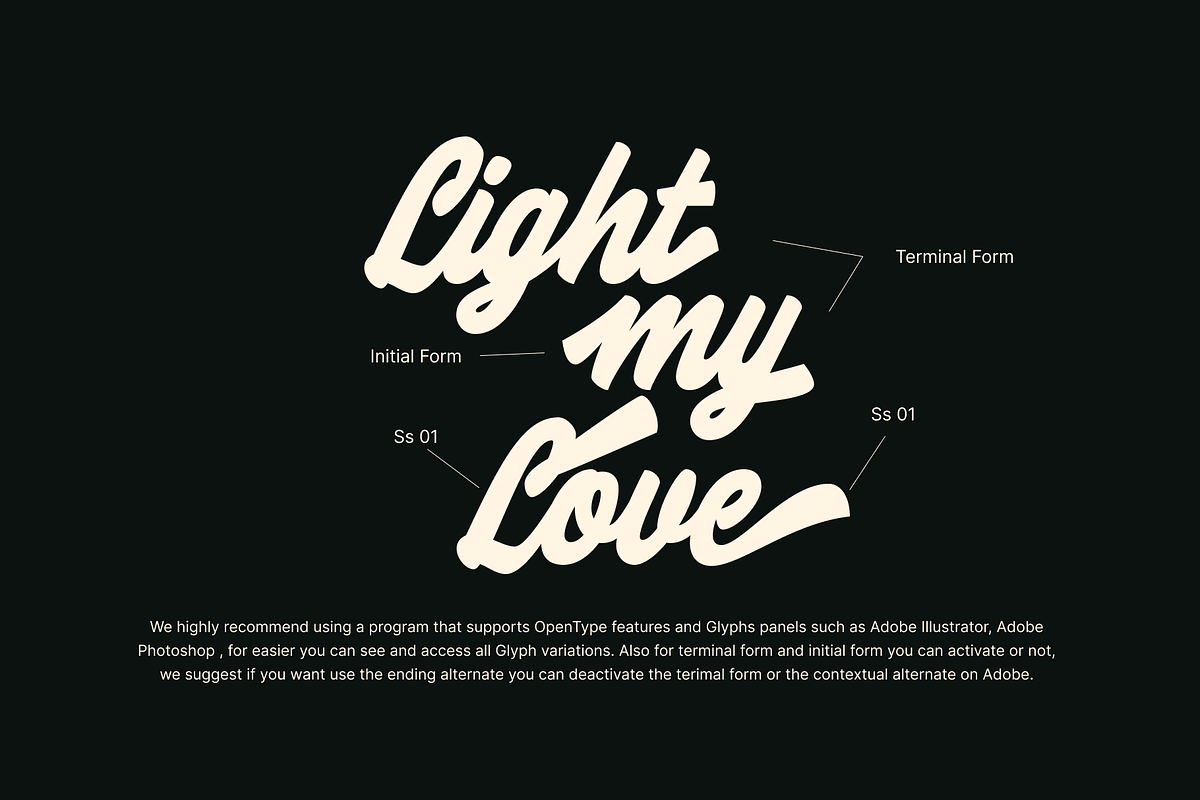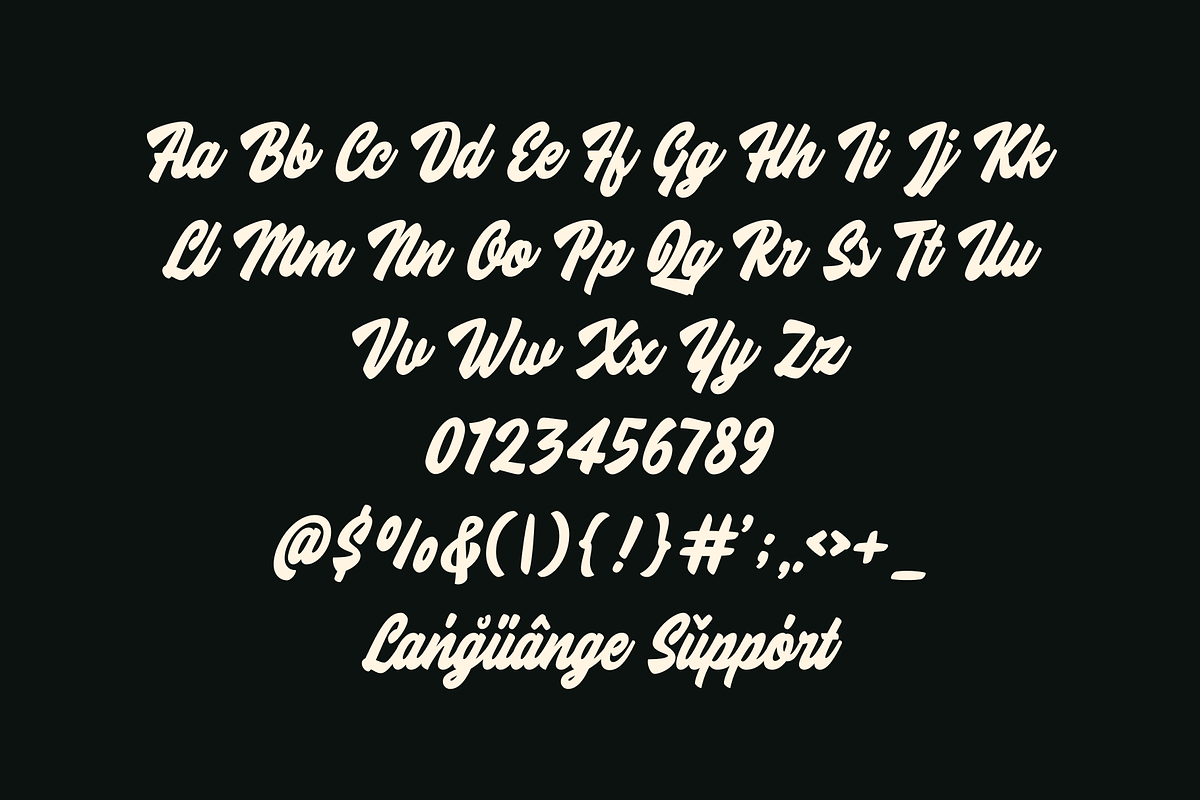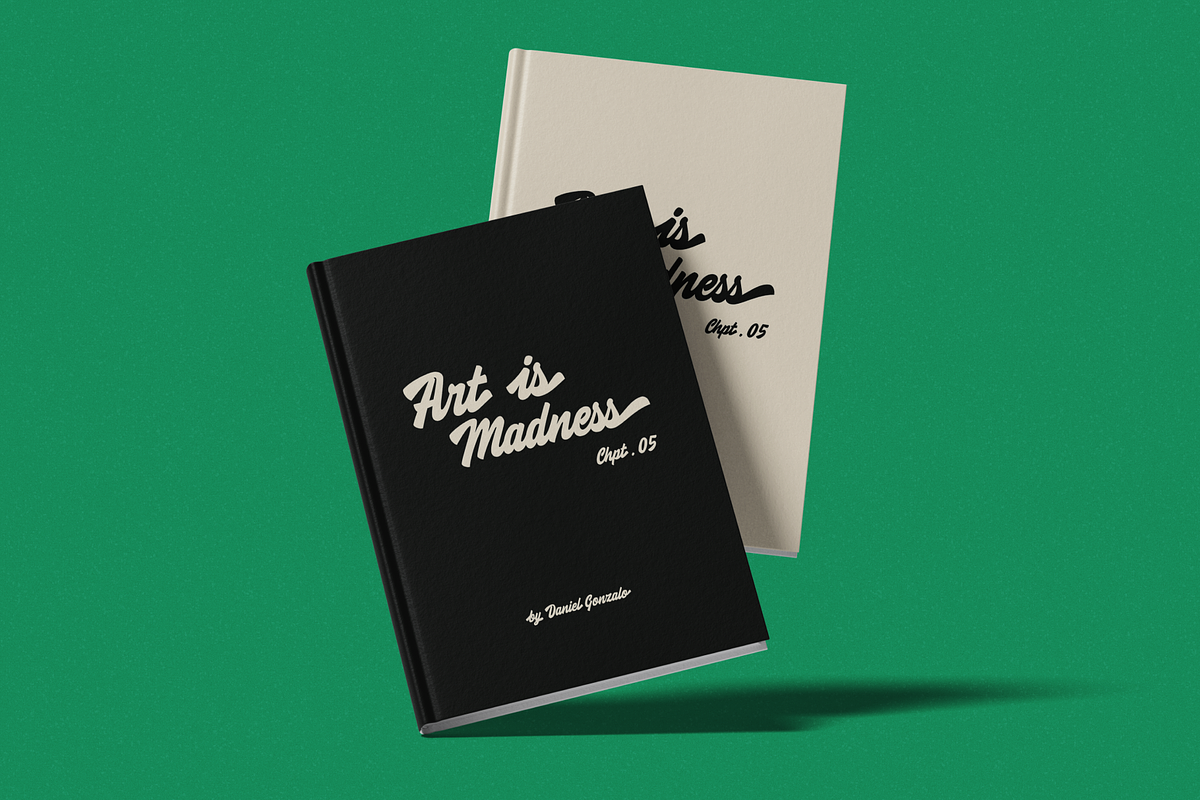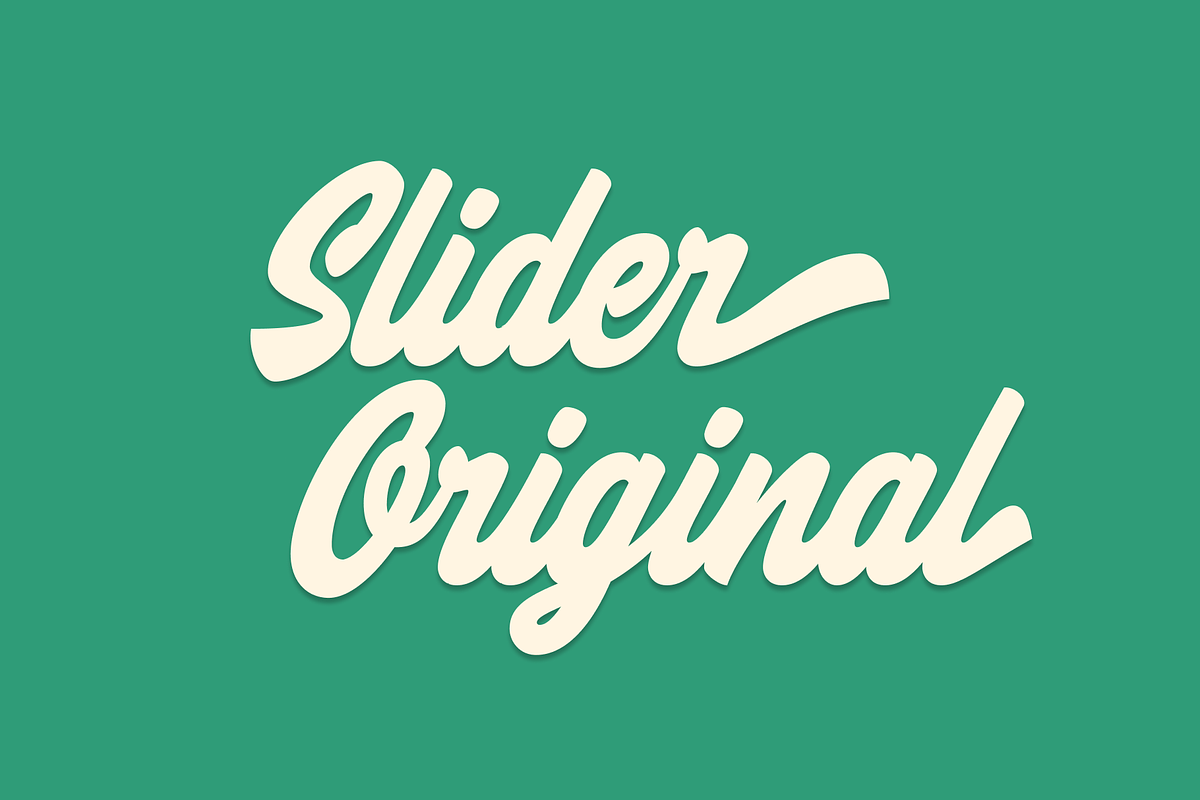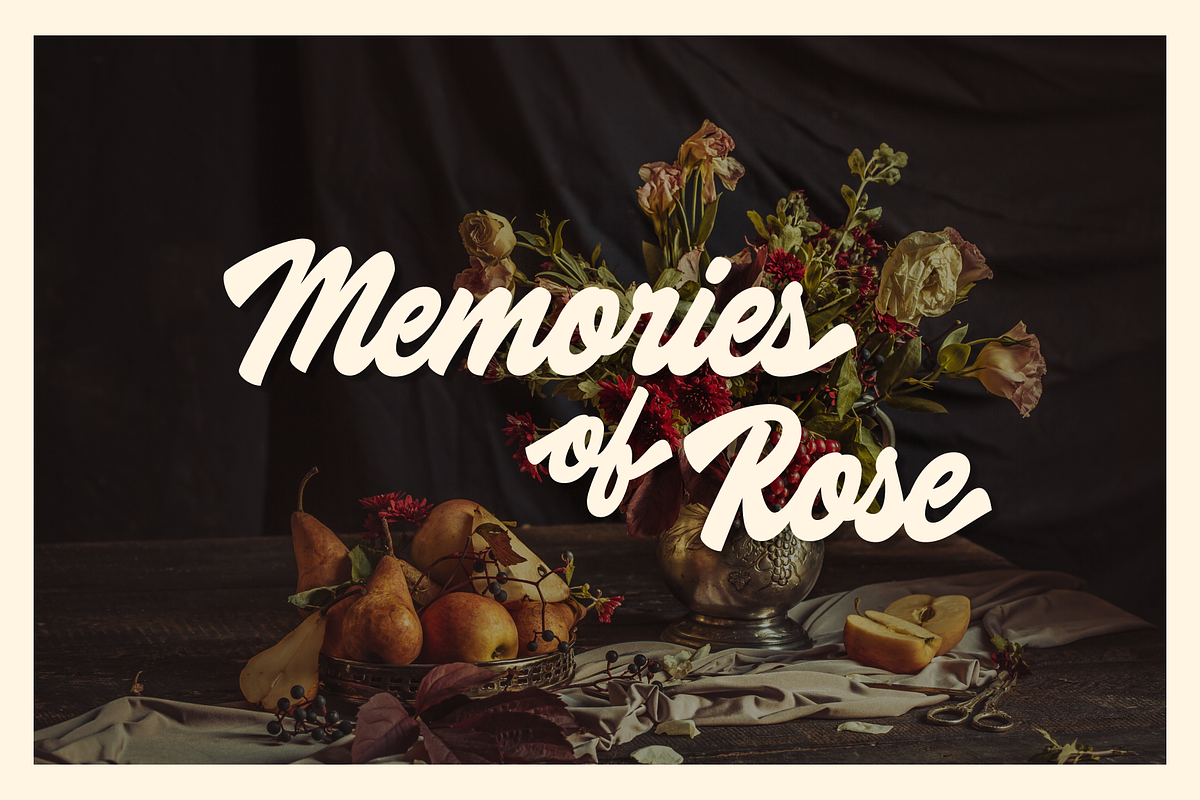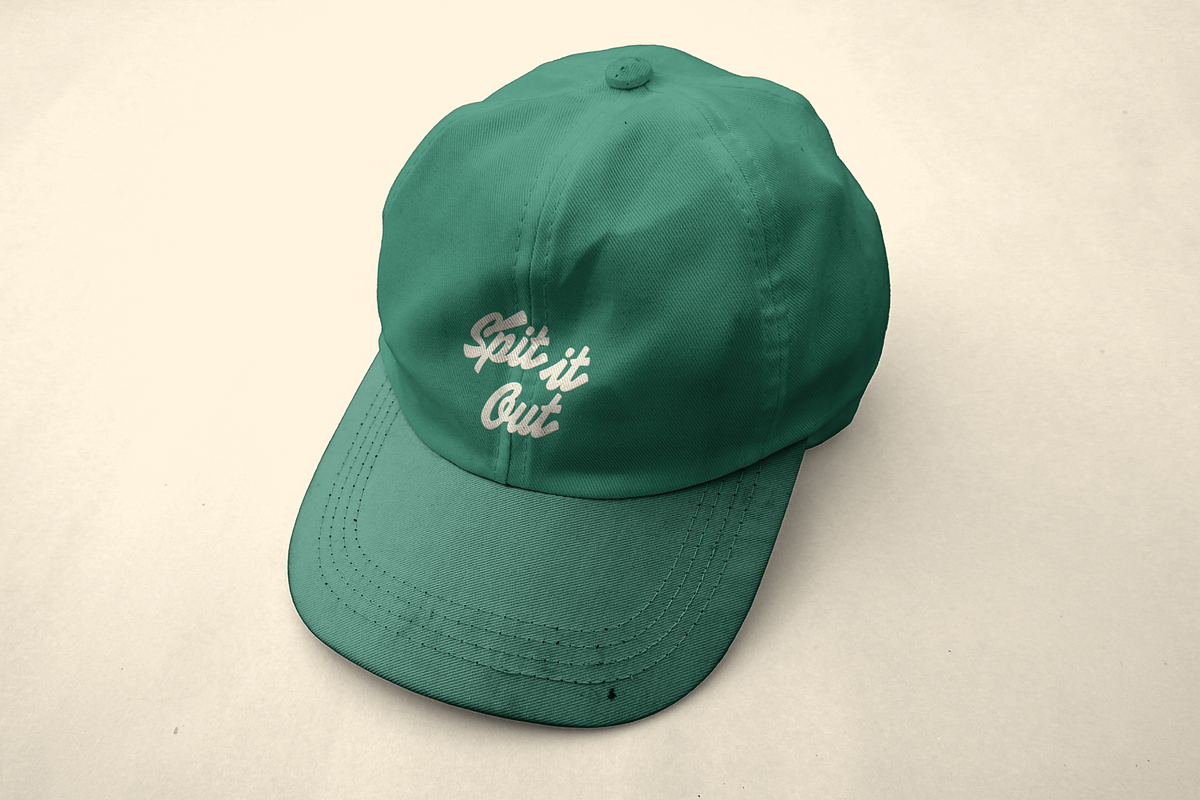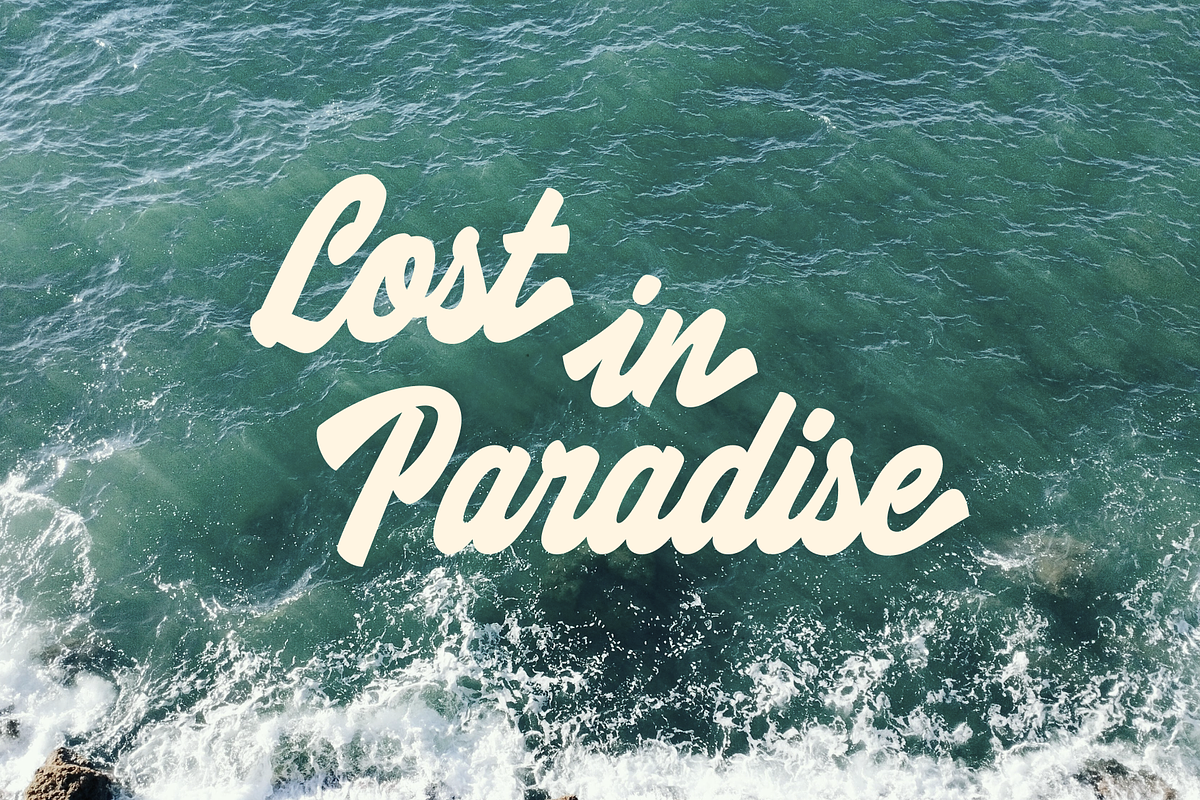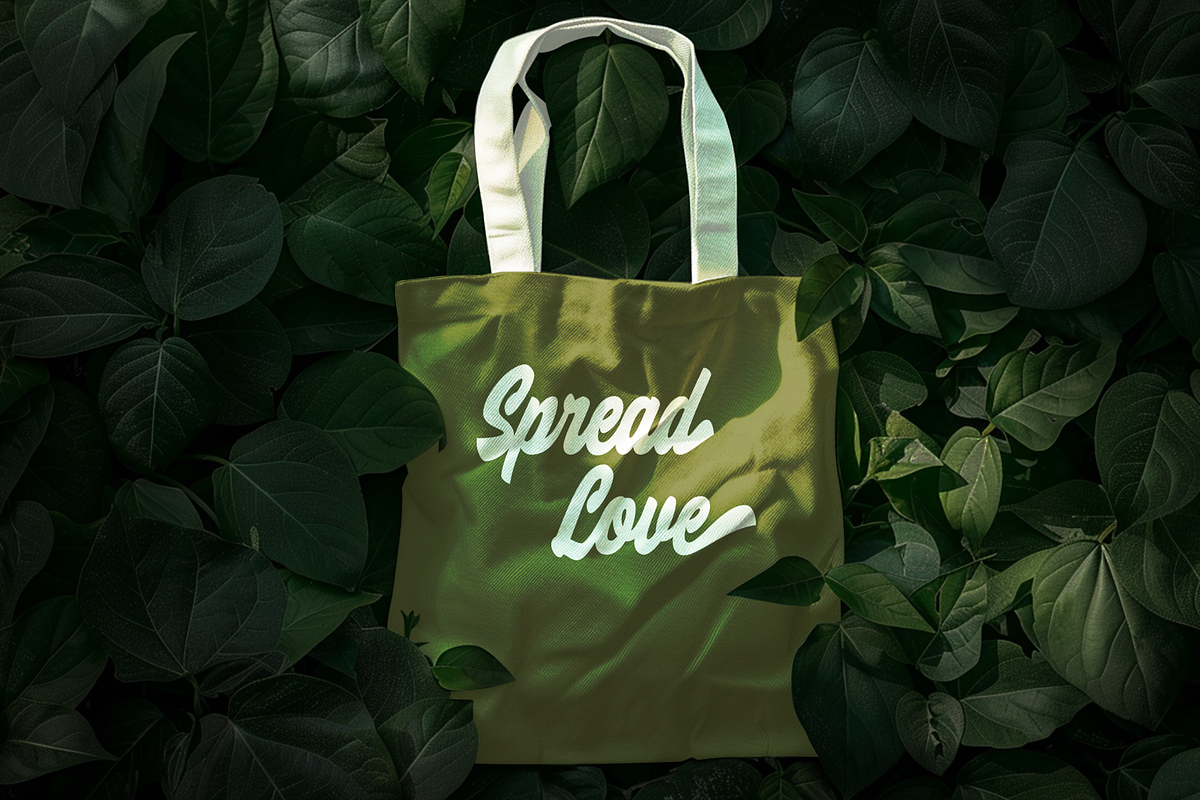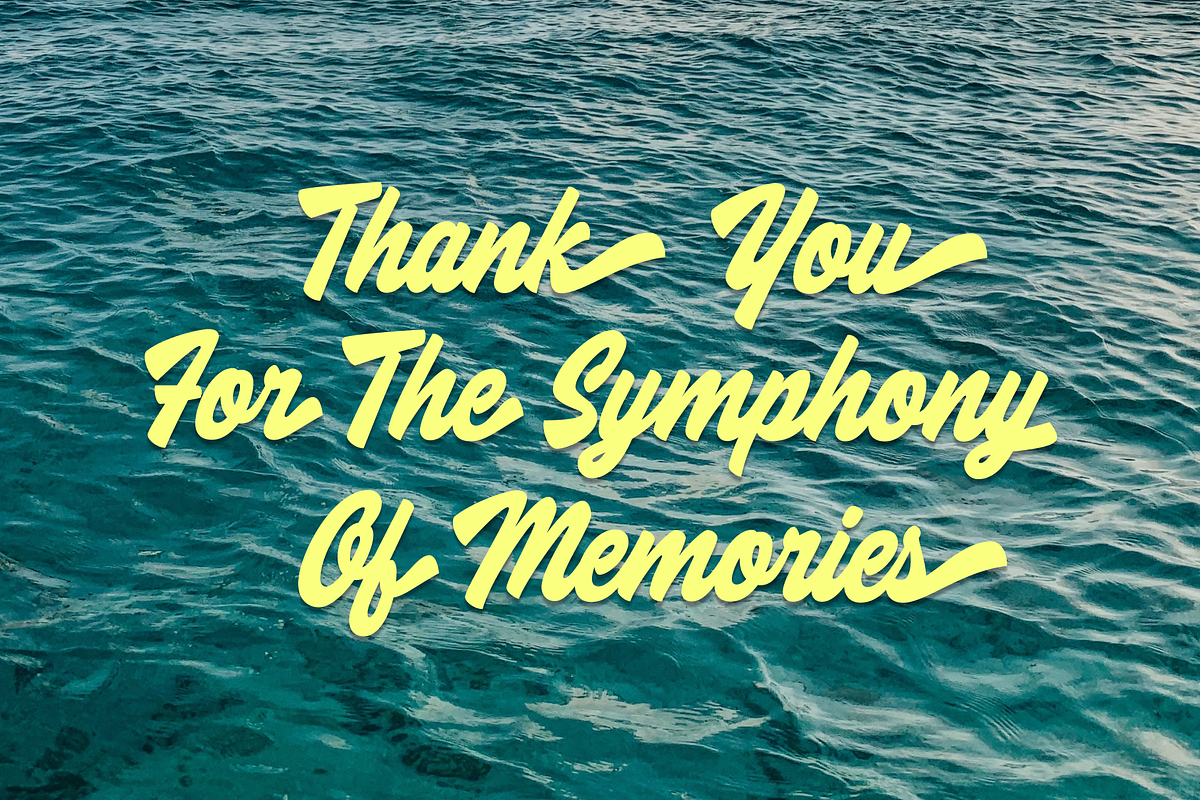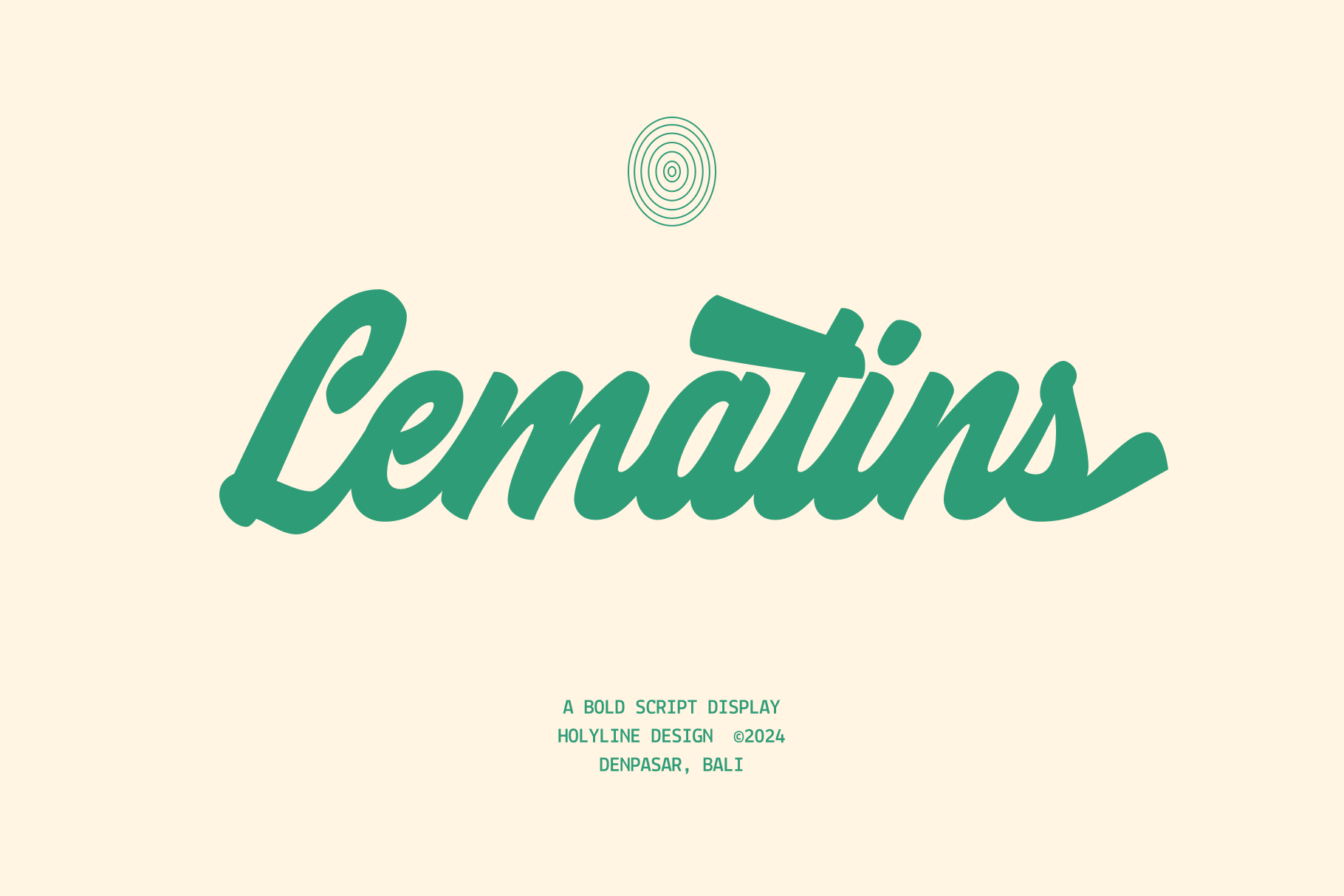
Lematins Script - Brush Font
Lematins Script is a graceful speedstroke script font, drawing inspiration from the iconic retro typography of the late ’60s and ’70s. With its classic brush script essence, this font embodies the nostalgic charm of vintage design while incorporating a modern touch for contemporary versatility. Perfect for projects that require both elegance and personality, Lematins Script’s fluid strokes and timeless appeal make it an excellent choice for logos, branding, invitations, and more. Its seamless blend of retro aesthetics and modern design ensures that it stands out in any application. Whether you’re aiming for nostalgia or a fresh, stylish look, Lematins Script delivers sophistication with a playful edge.